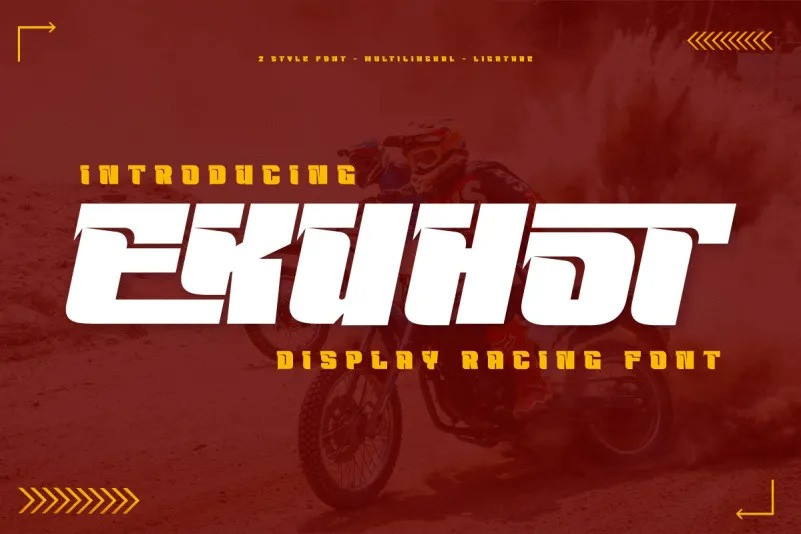
Ekuhot Font
How outstanding! Ekuhot Display Font, this is a bold and thick lettered display font, You can use it as a logo, badge, insignia, packaging, headline, poster, t-shirt/apparel, greeting card, and wedding invitation.